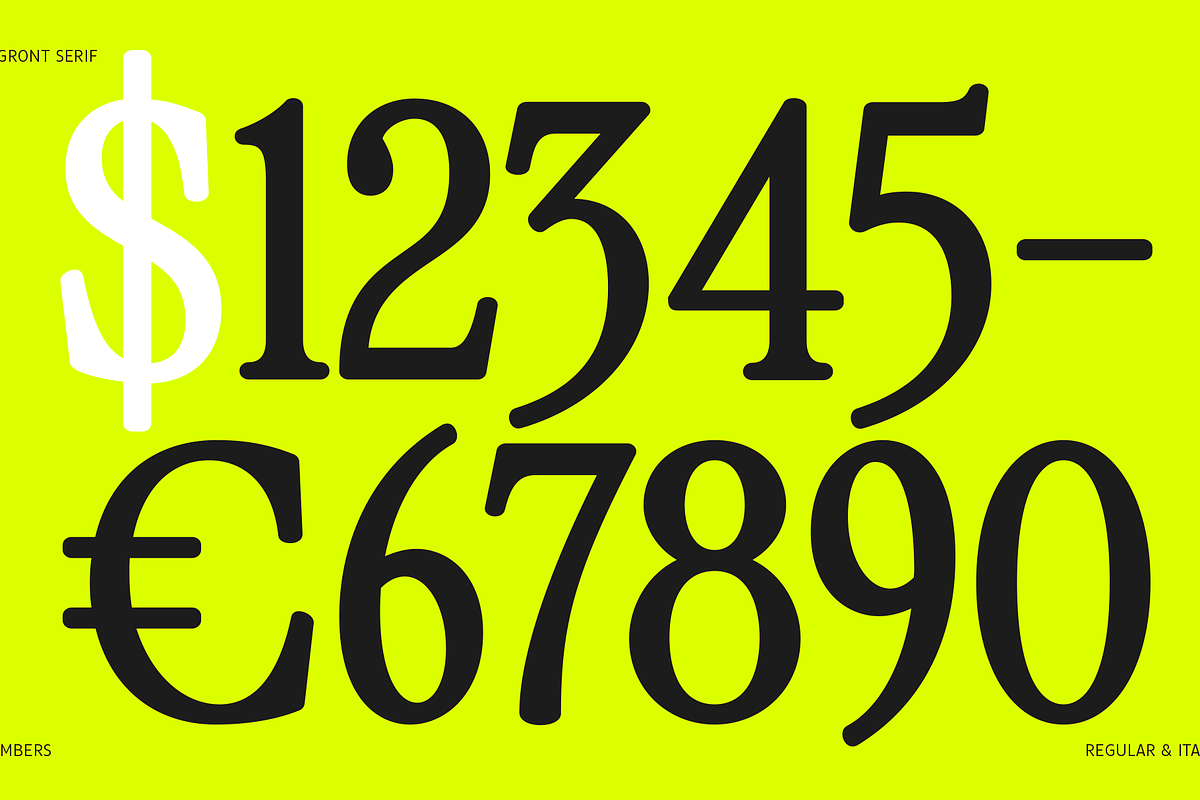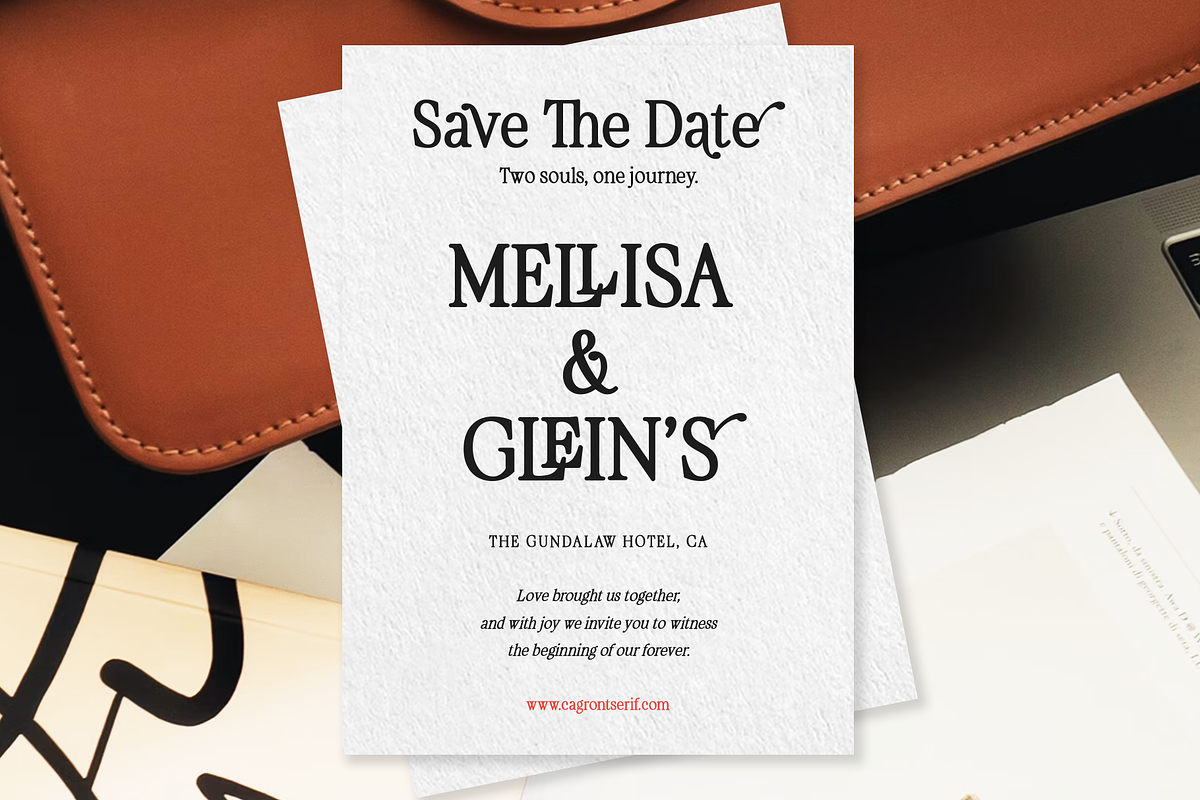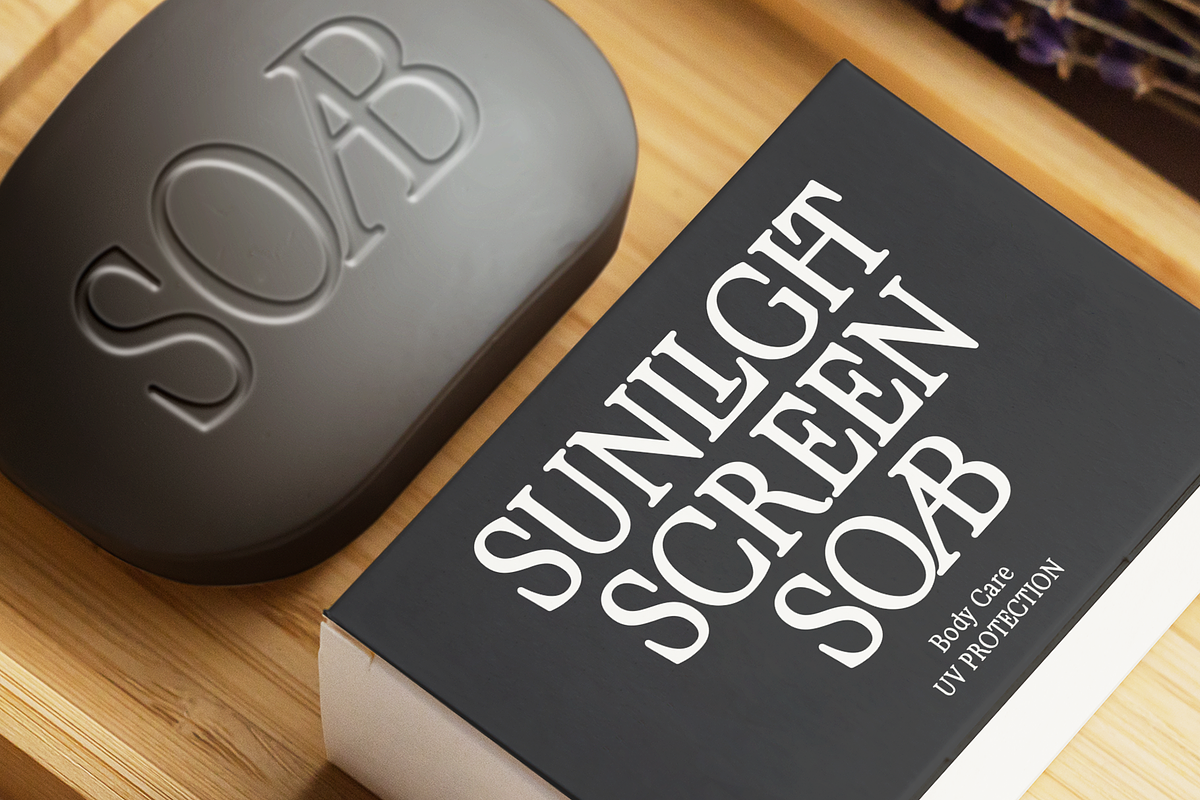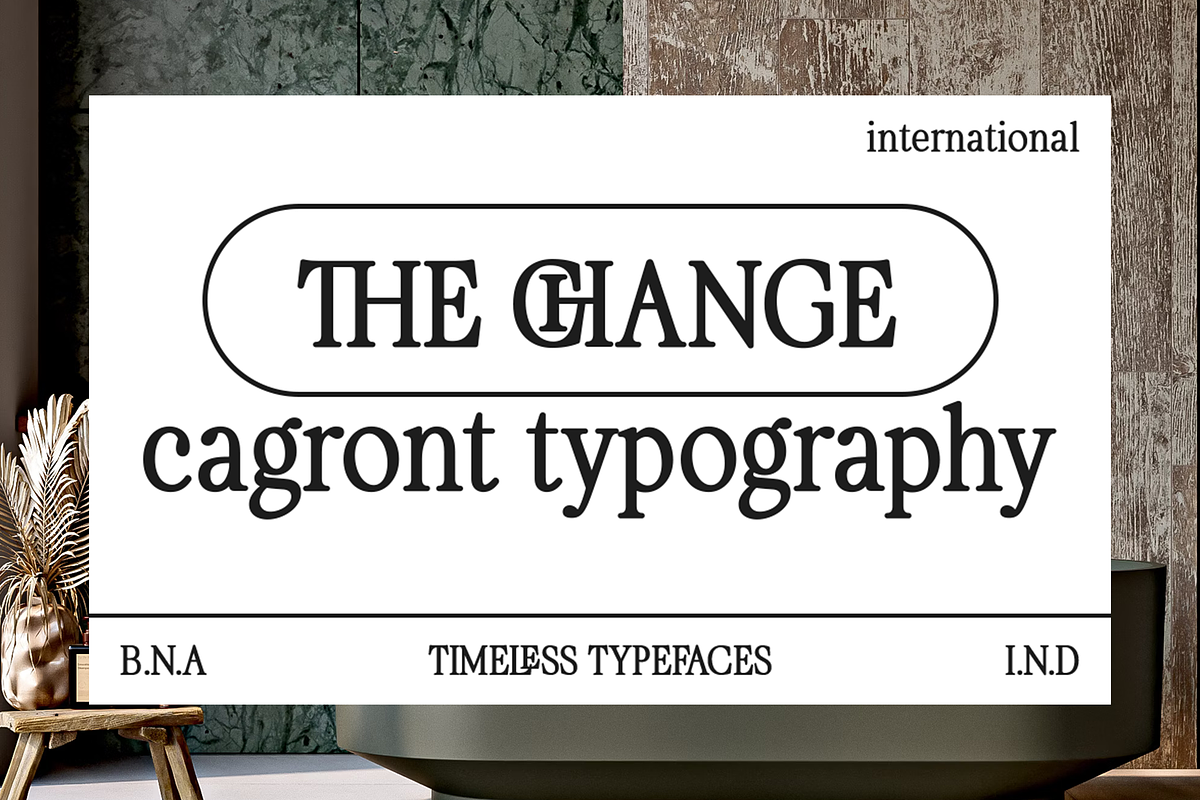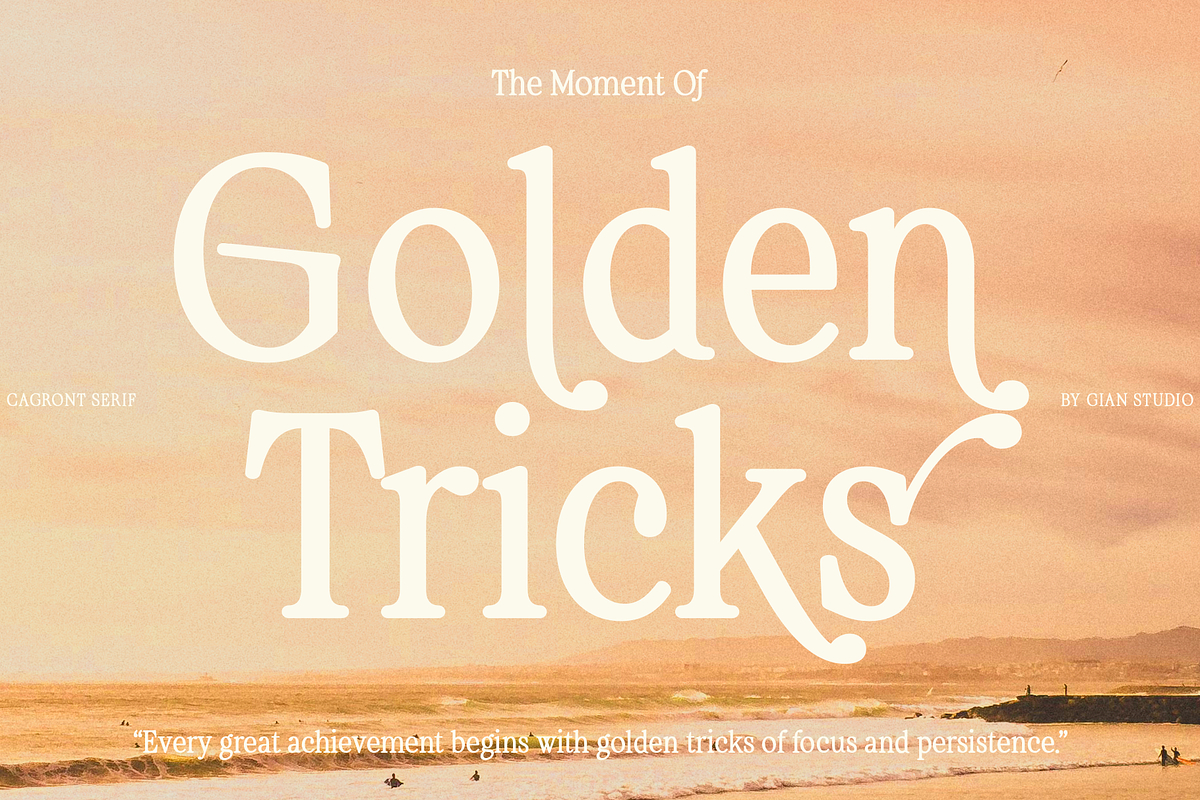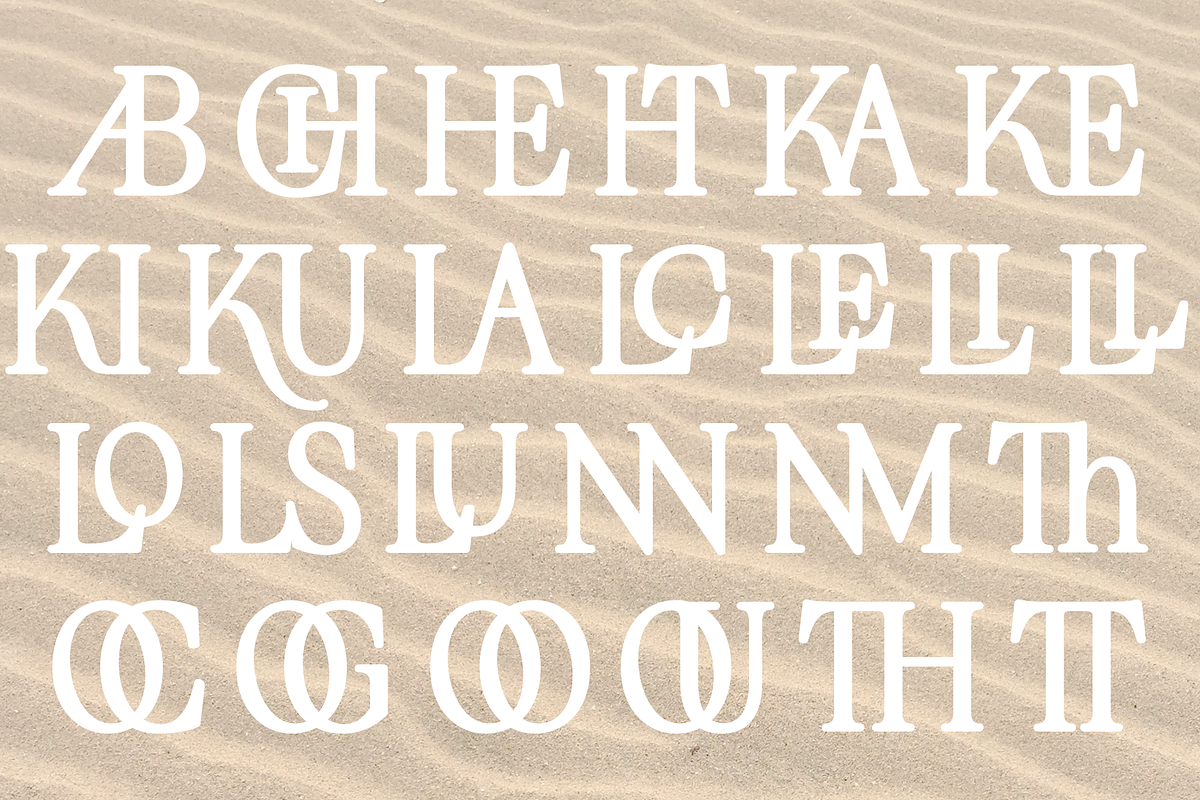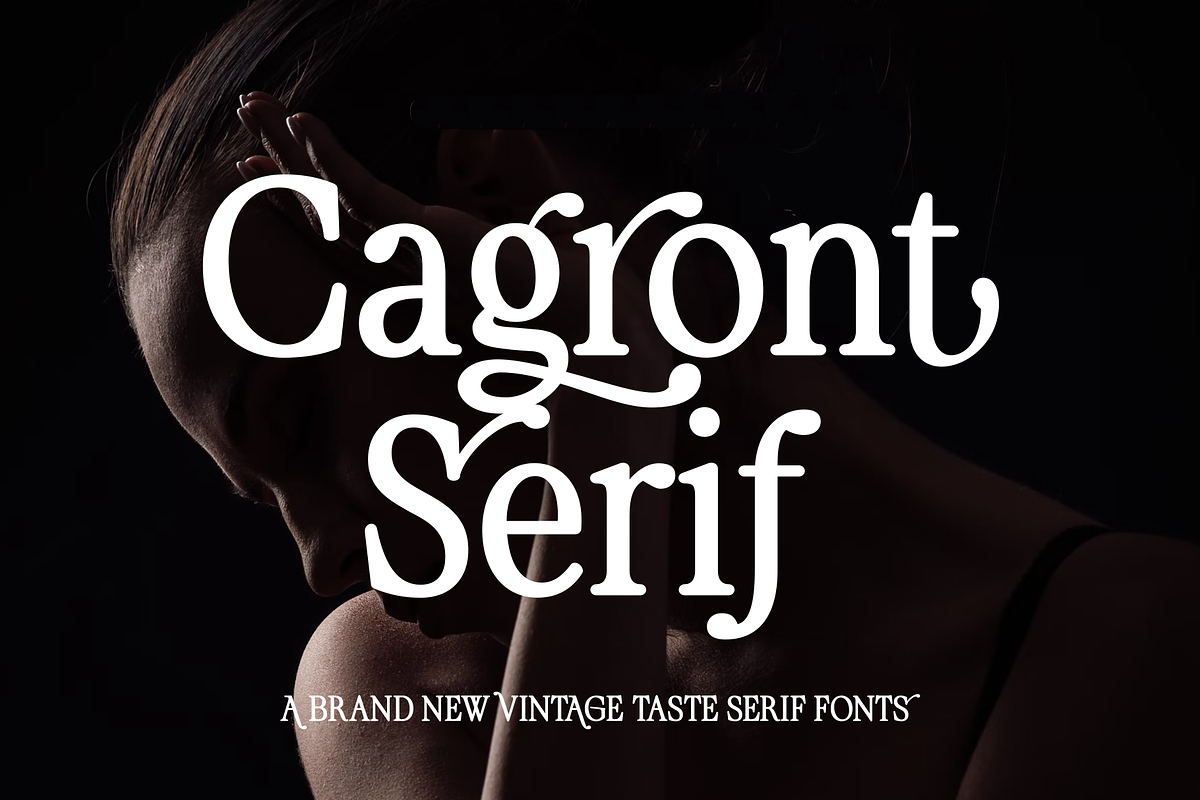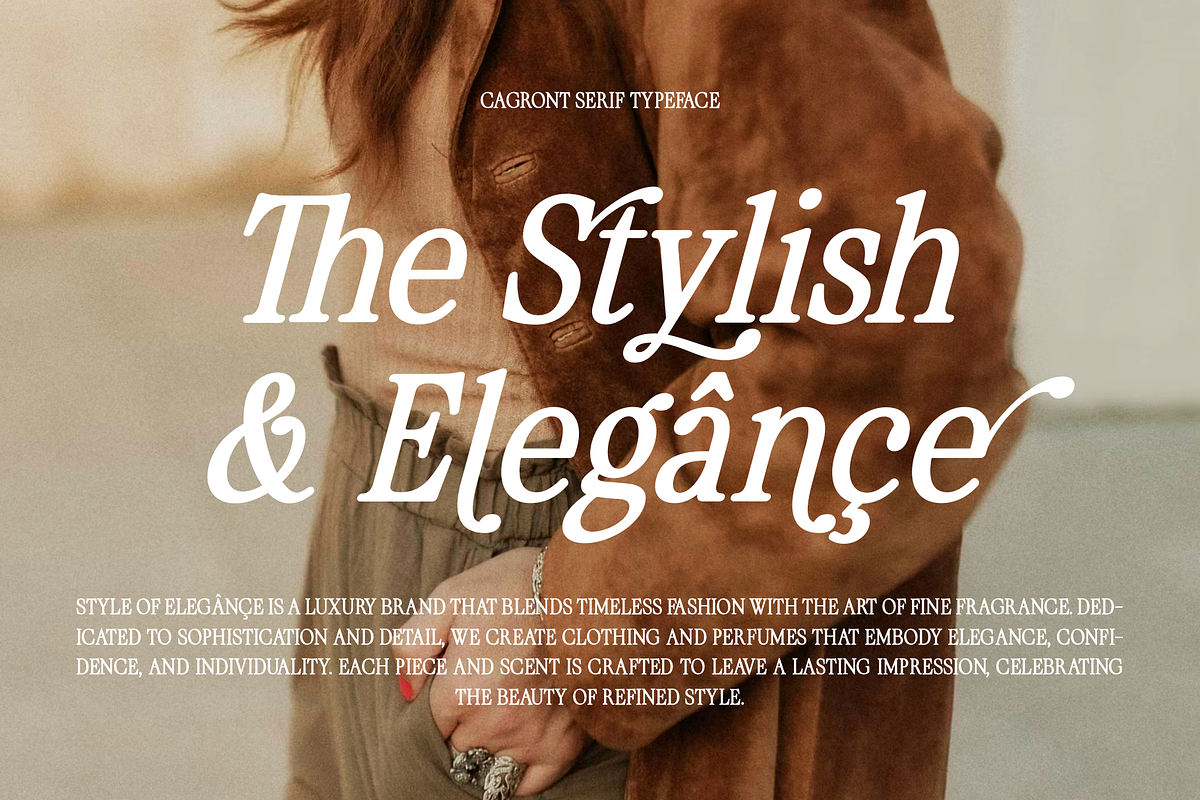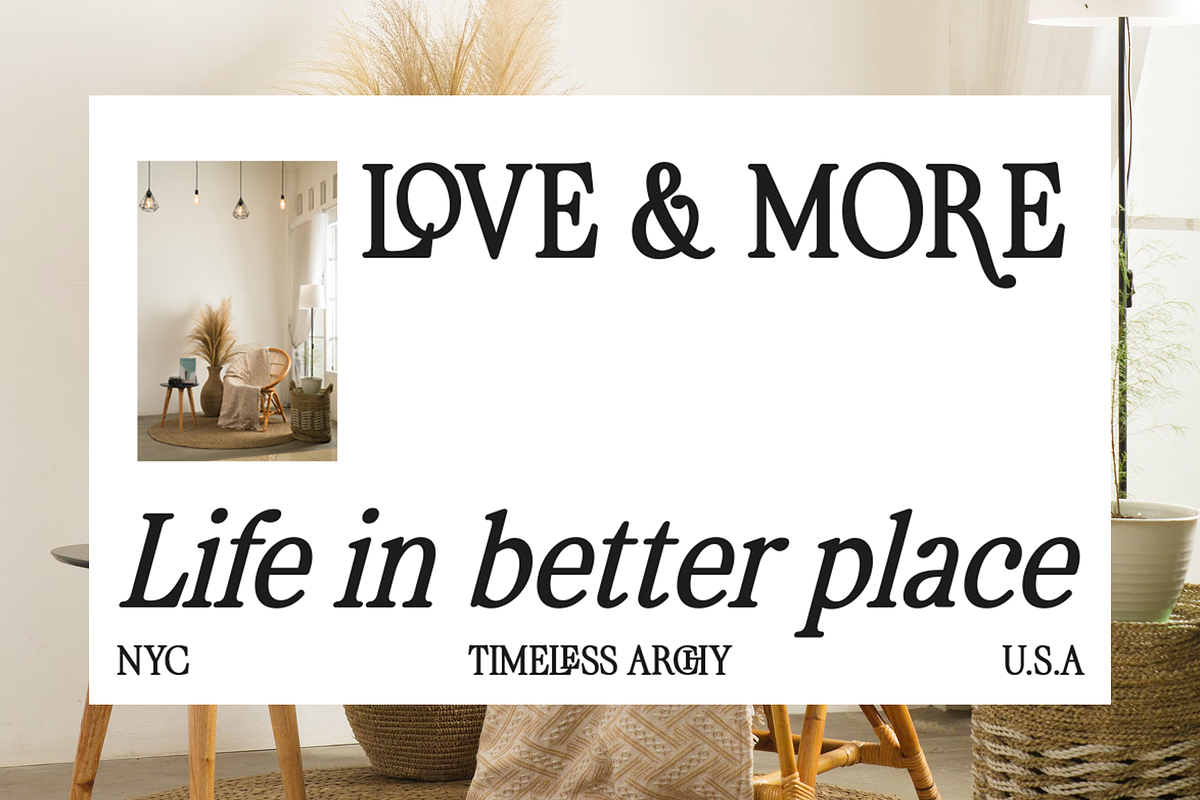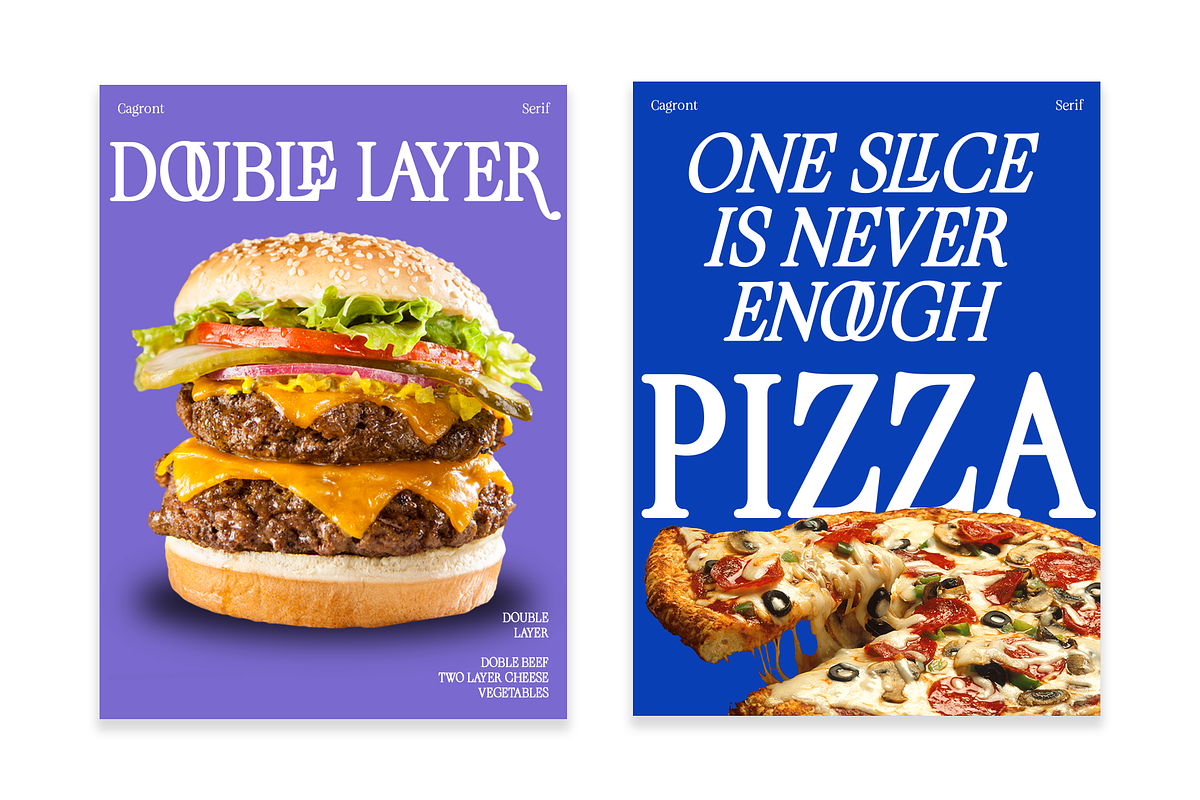
Cagront Serif
Present to you for New Modern Cagront Serif!
Cagront Serif is a sophisticated ligature and alternate Serif from us. This typeface has been made carefully to make sure its premium quality and luxury feel. The ligatures and alternates makes this typeface unique and stands out rather than the regular Serif font.
This font is very suitable for logo, headline, tittle, and the other various formal forms such as invitations, labels, logos, magazines, books, greeting / wedding cards, packaging, fashion, make up, stationery, novels, labels or any type of advertising purpose.
Ligatures & Alternates
Letters, numbers, symbols, and punctuation